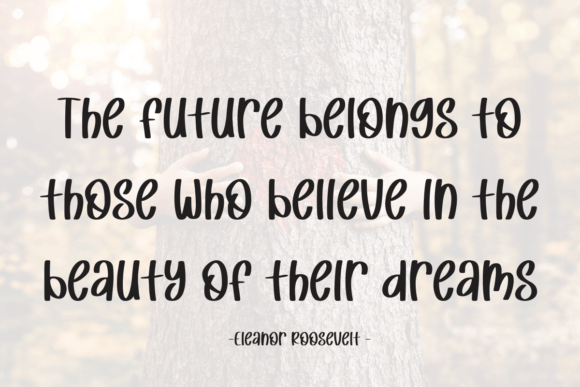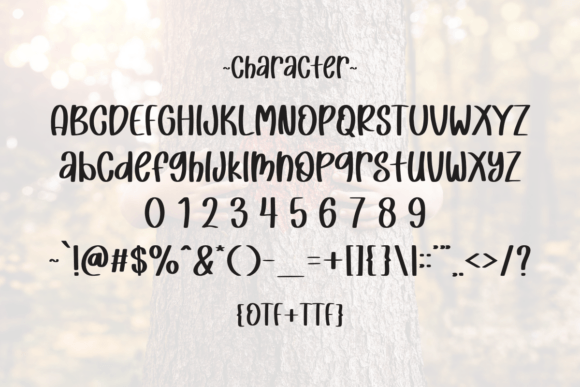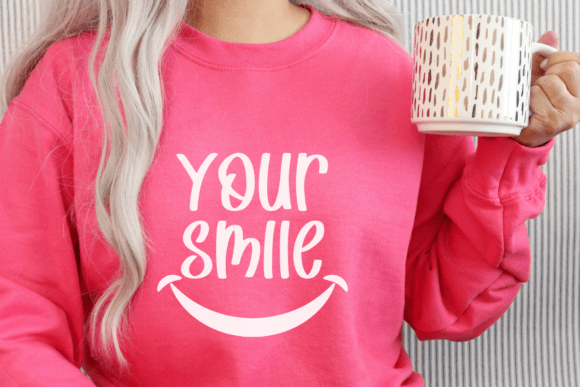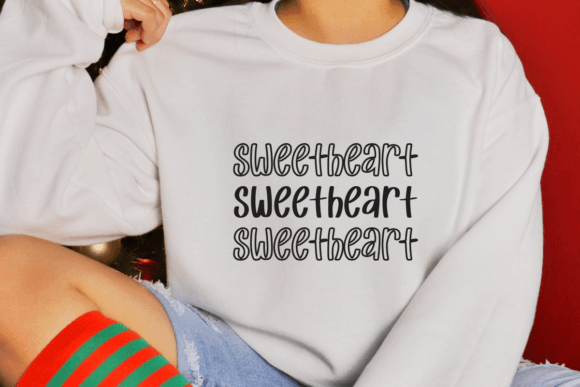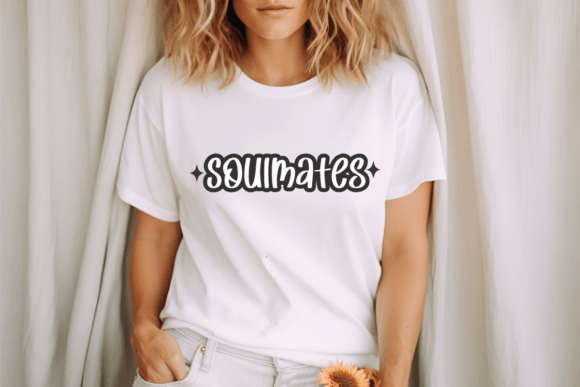
Introducing Give Hugs Font: The Perfect Addition to Your Valentine’s Day Designs
Are you looking for a font that captures the spirit of Valentine’s Day? Look no further than Give Hugs Font! This fun and playful sans serif font is perfect for creating unique and eye-catching designs for Valentine’s Day celebrations. With its natural strokes and touches, Give Hugs Font is sure to add a touch of warmth and personality to your projects.
What Makes Give Hugs Font Special?
Give Hugs Font is a one-of-a-kind font that is specifically designed to bring a sense of fun and playfulness to your designs. Its sans serif style gives it a modern and clean look, while its natural strokes and touches add a touch of whimsy and charm. This font is perfect for designers and crafters who want to create unique and personalized designs for Valentine’s Day.
Perfect for Valentine’s Day Designs
Give Hugs Font is specifically designed with Valentine’s Day in mind. Its playful and romantic style makes it perfect for creating designs for Valentine’s Day greeting cards, necklaces, gifts, t-shirts, and more. Whether you’re a designer or crafter, this font is sure to inspire you to create something special for your loved ones.
Beyond Valentine’s Day: Other Uses for Give Hugs Font
While Give Hugs Font is perfect for Valentine’s Day designs, its versatility means it can be used for a wide range of other projects. Here are some ideas to get you started:
- Journals and notebooks: Add a personal touch to your journals and notebooks with Give Hugs Font.
- KDP and publishing: Use Give Hugs Font to create eye-catching titles and headings for your Kindle Direct Publishing (KDP) projects.
- Teaching materials: Give Hugs Font is perfect for creating engaging and interactive teaching materials, such as worksheets and activity sheets.
- Cricut and silhouette projects: Use Give Hugs Font to create custom vinyl decals, iron-on designs, and more for your Cricut or silhouette projects.
- Sublimation and necklaces: Create custom sublimation designs and necklaces with Give Hugs Font.
- Women’s clothing and accessories: Use Give Hugs Font to create custom designs for women’s clothing and accessories, such as t-shirts, tote bags, and keychains.
Why Choose Give Hugs Font?
There are many reasons why Give Hugs Font is the perfect choice for your design projects. Here are just a few:
- Unique and playful style: Give Hugs Font has a one-of-a-kind style that is sure to stand out in your designs.
- Easy to read: Despite its playful style, Give Hugs Font is easy to read and understand, making it perfect for body text and headings.
- Versatile: Give Hugs Font can be used for a wide range of projects, from Valentine’s Day designs to journals and teaching materials.
- High-quality: Give Hugs Font is a high-quality font that is designed to produce crisp and clear results, even at small sizes.
Tips for Using Give Hugs Font
Here are a few tips for getting the most out of Give Hugs Font:
- Experiment with different colors: Give Hugs Font looks great in a wide range of colors, so don’t be afraid to experiment and find the perfect hue for your design.
- Pair with other fonts: Give Hugs Font pairs well with a wide range of other fonts, so try combining it with other fonts to create a unique and eye-catching design.
- Use for headings and titles: Give Hugs Font is perfect for headings and titles, so try using it to add a touch of personality to your designs.
Give Hugs Font is a fun and playful sans serif font that is perfect for Valentine’s Day designs and beyond. With its natural strokes and touches, this font is sure to add a touch of warmth and personality to your projects. Whether you’re a designer or crafter, Give Hugs Font is a great addition to your font library. So why not give it a try and see what amazing designs you can create?